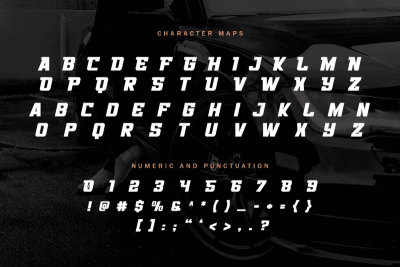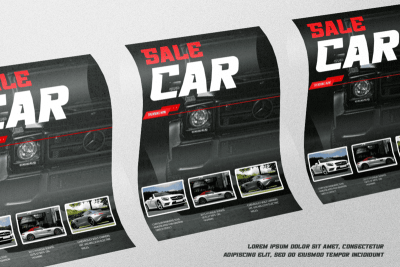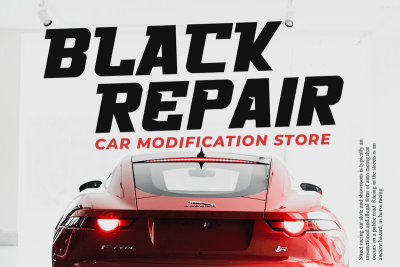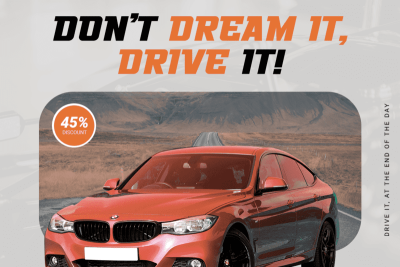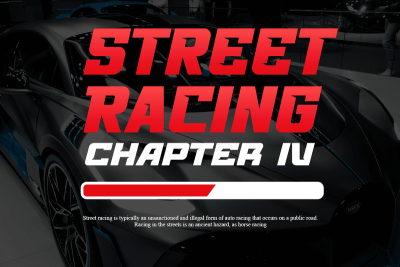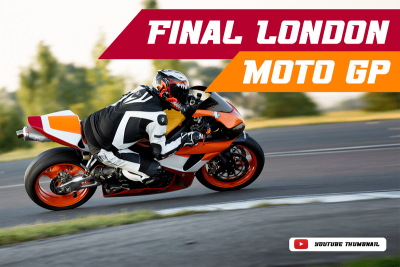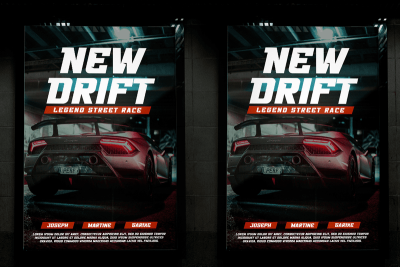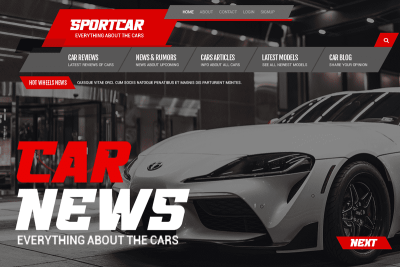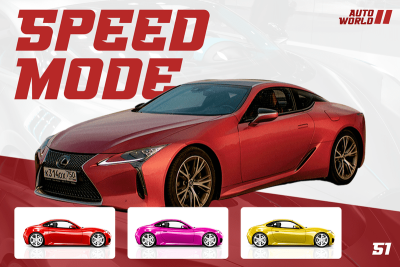
Racing Font SPEED DEMON is a bold and dynamic typeface designed to capture the high-energy atmosphere of motorsports and speed culture. With thick, blocky letterforms and sleek, sharp edges, this font evokes a sense of motion and power. Its striking design commands attention, making it perfect for projects that need a daring and energetic aesthetic. The gradient color effect featured in the sample adds a high-tech, futuristic vibe, reinforcing its connection to automotive innovation and speed.
This font is not just visually compelling but also versatile and functional. It maintains excellent readability even at varying sizes, making it suitable for both large headlines and detailed text elements. Whether you are designing for a digital platform or print media, Racing Font SPEED DEMON will elevate your project. Its high-quality and polished appearance ensures that your design will look professional and engaging.
In addition, the combination of futuristic elements and a retro-inspired blocky structure gives this font a unique edge. It can seamlessly blend into designs that require a modern, technological feel while still appealing to audiences who appreciate classic motorsport aesthetics. From branding to merchandise, this font delivers impactful results.
Racing Font SPEED DEMON Perfect For
Racing Font SPEED DEMON is perfect for automotive enthusiasts, motorsport event organizers, and designers in need of a bold typeface. It brings a powerful presence to projects requiring a high-energy visual impact. If you want to channel the speed and adrenaline of racing into your work, this font is your ideal choice.
This typeface is great for:
- Branding for car parts and accessories
- Promotional materials for automotive or racing events
- Automotive blogs, magazines, and YouTube channels
- Eye-catching custom car wraps and decals
- Event flyers and bold posters
- Racing-themed merchandise such as apparel, mugs, and accessories
Moreover, gaming developers and content creators will find this font invaluable. Its bold and dynamic look makes it perfect for game titles, in-game UI elements, and promotional assets. Racing Font SPEED DEMON effortlessly brings life and excitement to any creative project. It transforms ordinary designs into captivating visuals that capture the essence of speed, power, and innovation. Whether you’re in advertising, automotive industries, or entertainment, this font accelerates your designs to the next level.